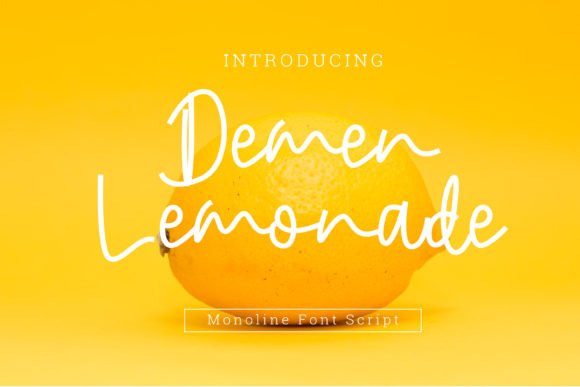
A Refreshing Touch to Your Designs
Have you ever been in the midst of a creative project, staring at a blank page, and suddenly, a burst of inspiration strikes? You envision the perfect font, the one that adds a dash of whimsy and personality to your design. For many designers, this moment is the catalyst for something truly special.
Enter the Demen Lemonade Font, a charming handwritten font that’s sure to bring your creative ideas to life. With its playful, carefree feel, this font is perfect for adding a refreshing touch to your designs. Whether you’re working on a children’s book, a food blog, or a social media campaign, Demen Lemonade Font is the perfect companion to help you craft a visual identity that’s truly unique.
Demen Lemonade Font Key Features
- Font Family: Demen Lemonade
- Unique Characteristics: Unique, handwritten, and cursive script with a touch of elegance and sophistication
- Language Support: Latin-based languages (Western European, Central European, Turkish, etc.)
- Font Style: Regular, Italic, Bold, Bold Italic
Demen Lemonade Font Review
I recently had the chance to work with the Demen Lemonade Font, and I must say it’s a unique and intriguing typeface. ✨ One of the things that stands out about this font is its versatility – it’s suitable for a wide range of projects, from packaging design to digital media. ✨ The font’s playful and energetic feel makes it perfect for brands looking to convey a youthful and vibrant image. ✨ The extensive character set, including ligatures and swashes, adds an extra layer of sophistication and whimsy to designs.
However, there are a few limitations to consider. ⚠️ For one, the font’s bold weight may be too overwhelming for certain applications, particularly when used in large quantities. ⚠️ Additionally, some users may find the font’s irregular shapes and flourishes to be distracting or difficult to read at smaller font sizes. ⚠️ It’s also worth noting that the font’s compatibility may be affected by certain operating systems or software, so be sure to test it thoroughly before committing to a design project.
Overall, I think the Demen Lemonade Font is a great choice for designers looking to add a touch of personality to their work. While it may not be suitable for every project, its unique features and wide range of applications make it a valuable addition to any design library.
- Pros:
- Highly versatile
- Suitable for a wide range of projects
- Unique and energetic feel
- Extensive character set
- Cons:
- Bold weight may be overwhelming
- Irregular shapes and flourishes may be distracting
- Compatibility may be affected by certain operating systems or software
Practical Application Guide for Demen Lemonade Font
Some tips for getting the most out of Demen Lemonade Font include:
– Using it for titles and headings to add a touch of elegance.
– Pairing it with other fonts to create a unique and interesting typography.
– Using it for invitations, greeting cards, and other special occasion designs.
– Experimenting with different font sizes and styles to find the perfect look.
Alternatives to Demen Lemonade Font
Great Vibes Font is a modern, handwritten font suitable for creating a friendly and approachable atmosphere. It’s ideal for use in branding, advertising, and social media campaigns. Compared to Demen Lemonade Font, Great Vibes Font has a more casual and relaxed feel, making it perfect for informal projects.
Carolyna Pro Font is a elegant, script font perfect for creating a sophisticated and luxurious look. It’s ideal for use in high-end branding, invitations, and luxury goods packaging. Compared to Demen Lemonade Font, Carolyna Pro Font has a more refined and polished feel, making it suitable for formal projects.
Alex Brush Font is a beautiful, handwritten font with a touch of elegance. It’s ideal for use in branding, packaging, and editorial design. Compared to Demen Lemonade Font, Alex Brush Font has a more refined and sophisticated feel, making it perfect for projects that require a touch of class.